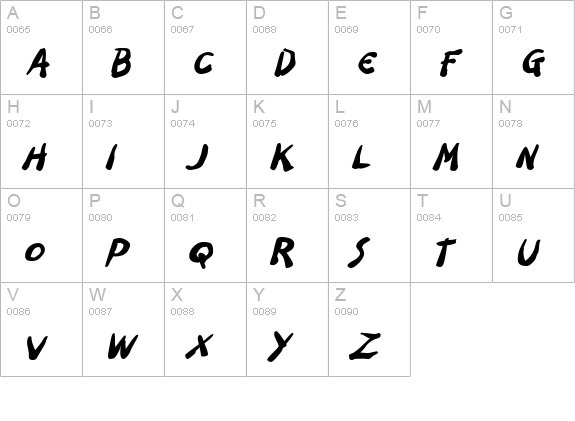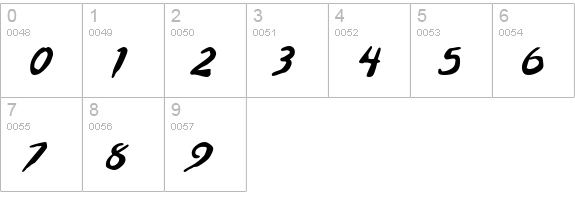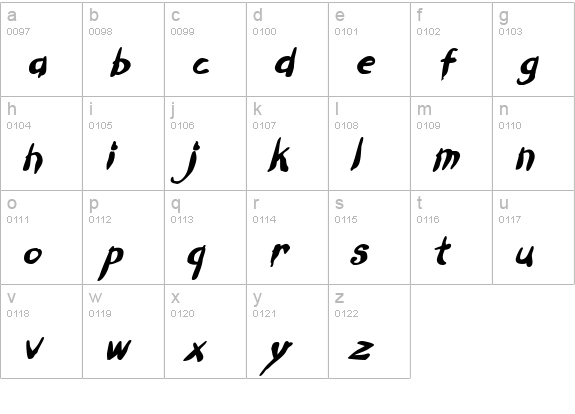
Dark Half BTN BoldOblique font is a striking and bold typeface that adds a touch of drama and elegance to any design project. Its unique combination of sharp angles and flowing curves creates a dynamic and eye-catching look. This font is ideal for headlines, posters, logos, and other design projects where you want to make a strong visual statement. What's even better is that Dark Half BTN BoldOblique font is available for free download at FontsMarket.com. You can easily access this stylish font and use it in your projects without any cost, making it a valuable addition to your font library. Don't miss out on the opportunity to enhance your designs with this versatile and captivating typeface.